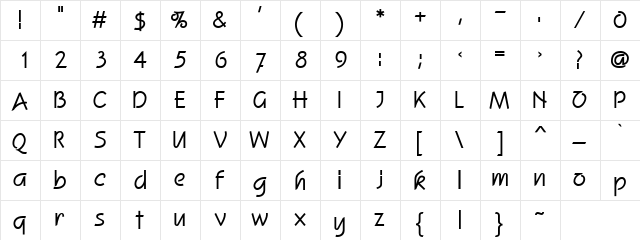
Aduren Regular
Design Context for Aduren Typeface
Aduren is a composed and adaptable typeface that performs quietly and consistently across a wide range of design contexts.